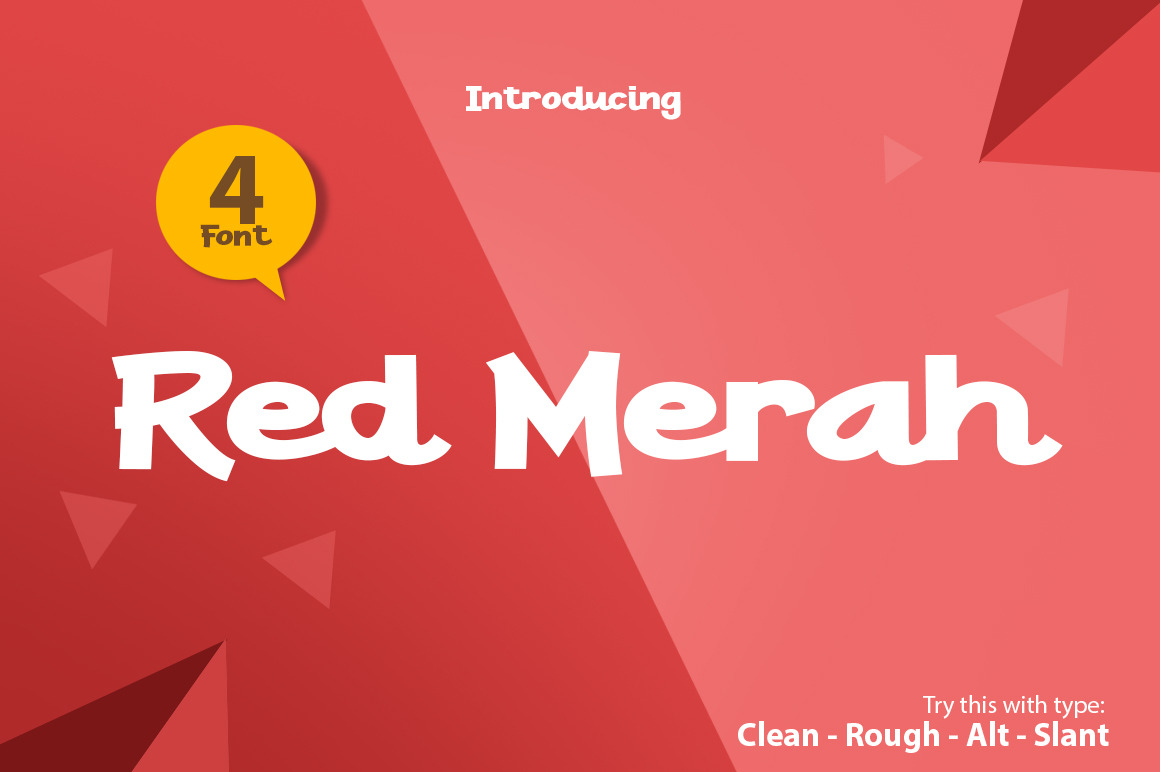
Red Merah 4 Font
Introducing...
Red Merah Font is a fun market pen font with a quirky style and feel to it! Red Merah Font suitable for logo, branding, greeting card, signature, poster and any design that you create.